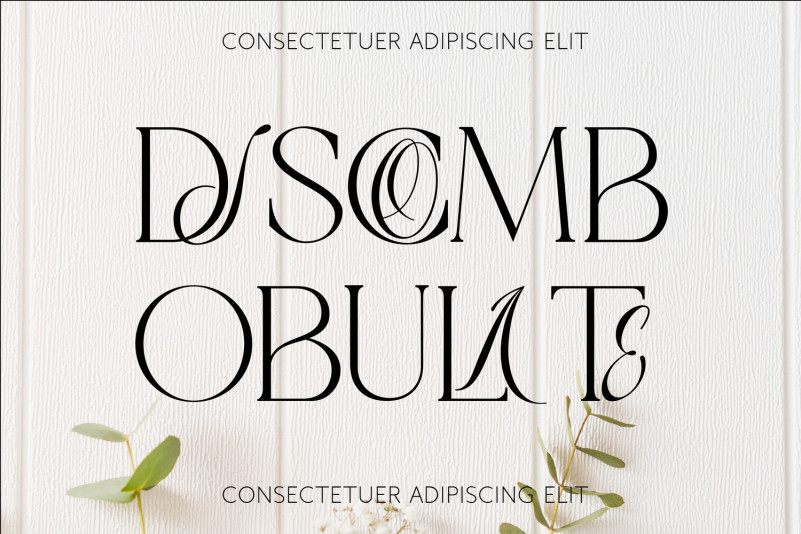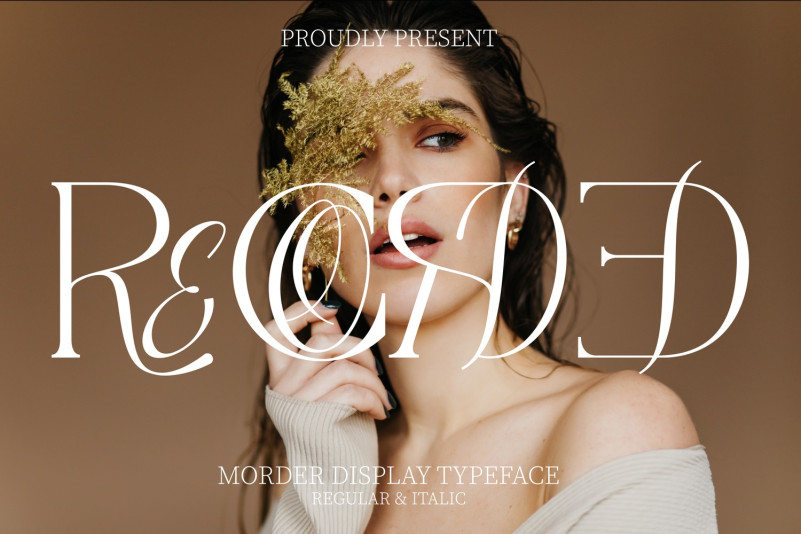
Recorded Font
Recorded Font – Hybrid Font is a gorgeous and luxury mix of classic calligraphy and modern serif fonts. All lowercase letters have a calligraphy style and may by insert anywhere in the word to create unique logo, name or display title. Just type them via lowercase. This is a dynamic, elegant, and luxurious impression display font inspired by fashion magazines and modern typography.
To make it look more unique, here we prepared some ligatures:
AC AD AL AN AR AS AT AU AV BE CA CE CH CO CT DE DI EA EC ED EE EL EM EN EP ER ES ET FE FO FR GE HA HE HI HO IE IC IL IN IO IR IS IT JU KE LA LE LI LL LO LT MA ME MI NC ND NE NG NO NS NT OC OF OM ON OO OP OR OT OU OW PA PR RA RD RE RO RS RT SE SH SS ST TA TE TH TI TO TR TT UM UN UR VE WI WO